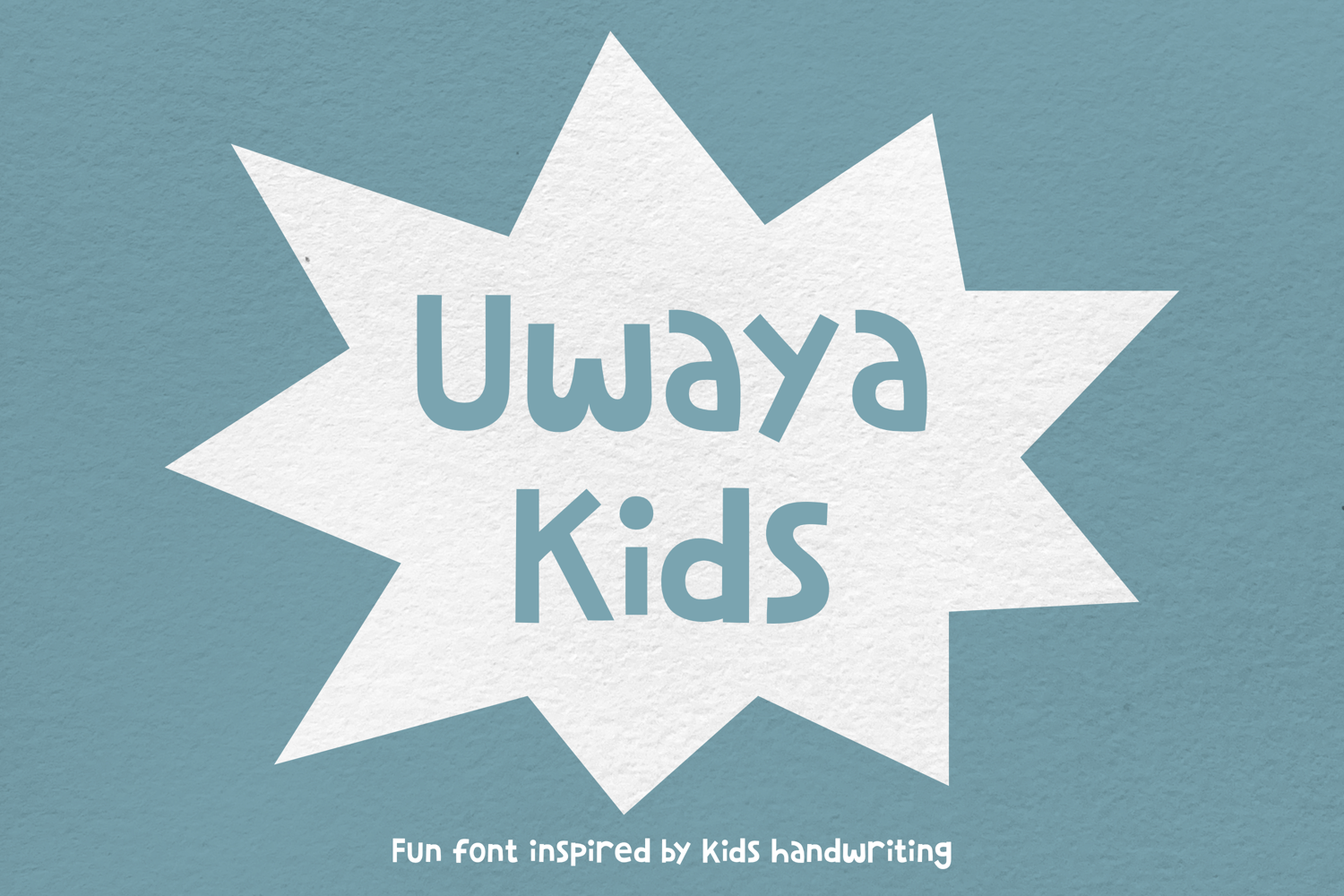
Uwaya Kids is a handdrawn font that beautifully captures the essence of kids handwriting. Its whimsical design breathes life into quote prints, lends a playful serenity to digital creations, and infuses an unmistakable touch of fun into product packaging. When your project calls for an aesthetic that echoes the joy and carefree spirit of childhood, let Uwaya Kids be your font of choice.